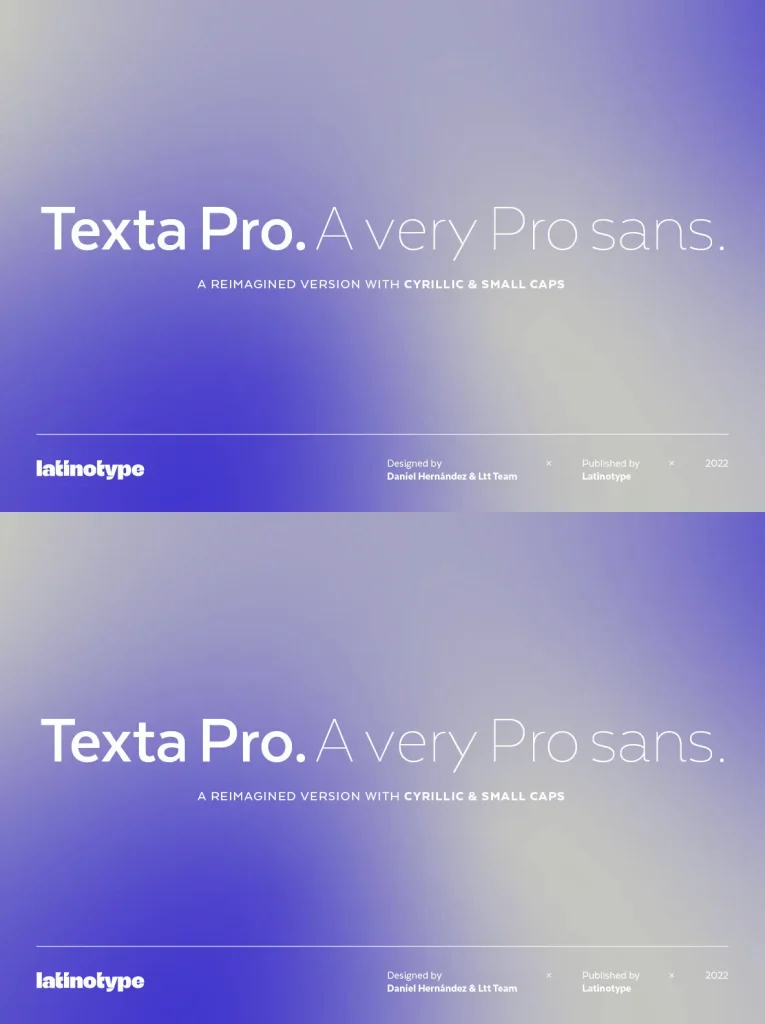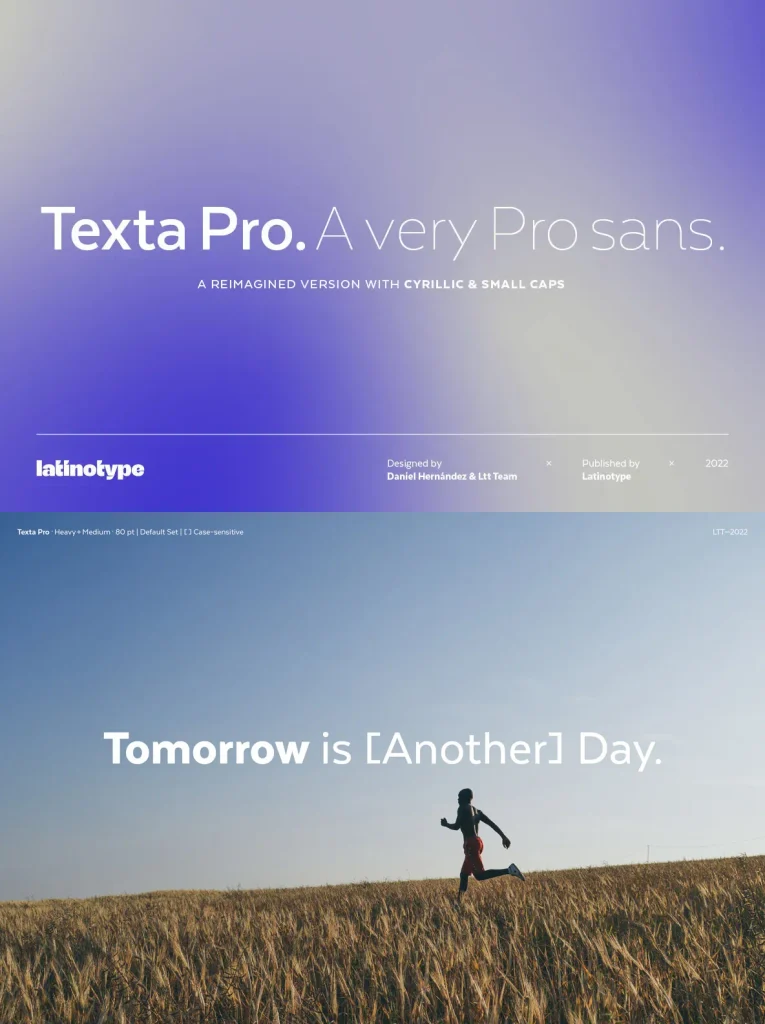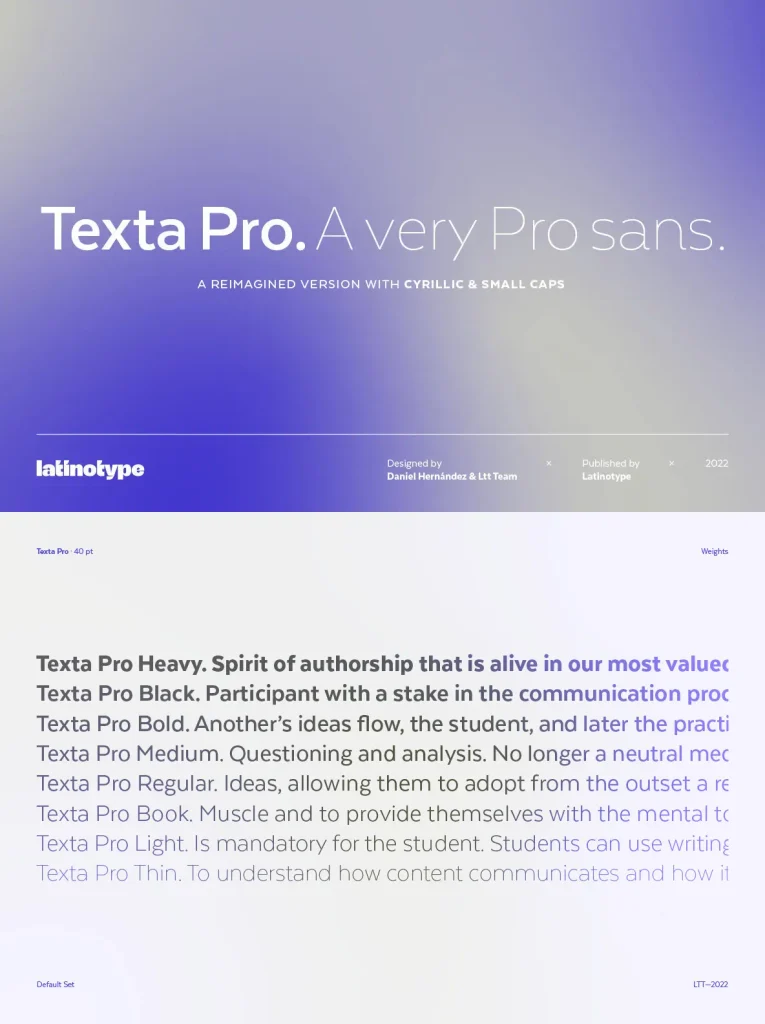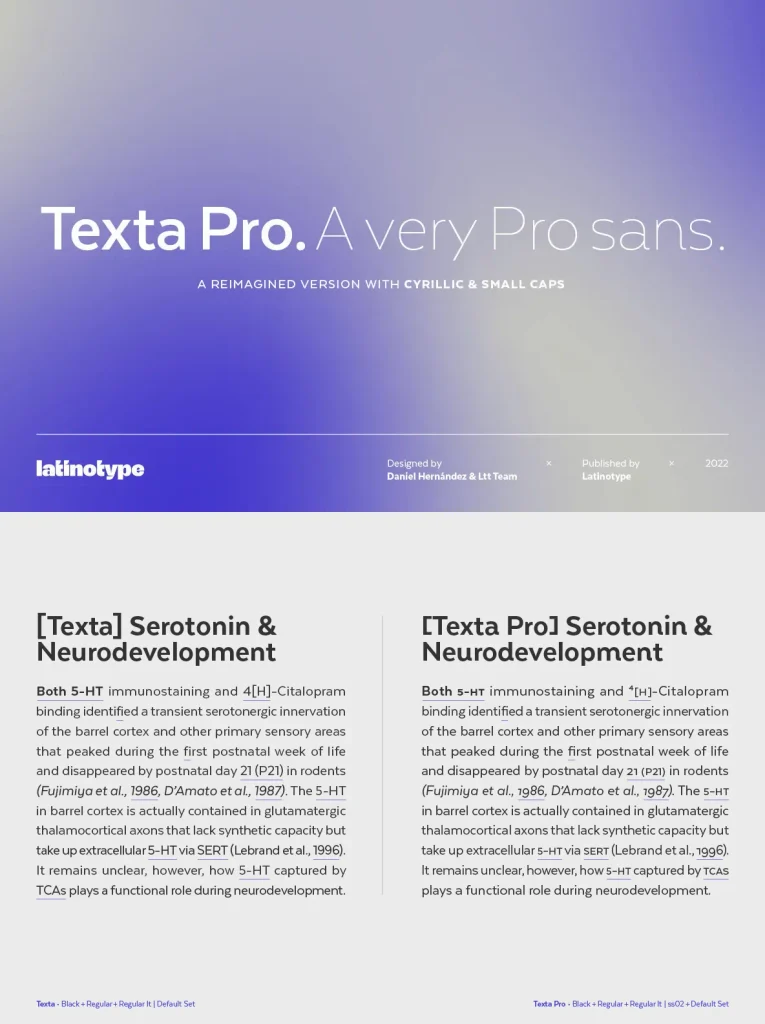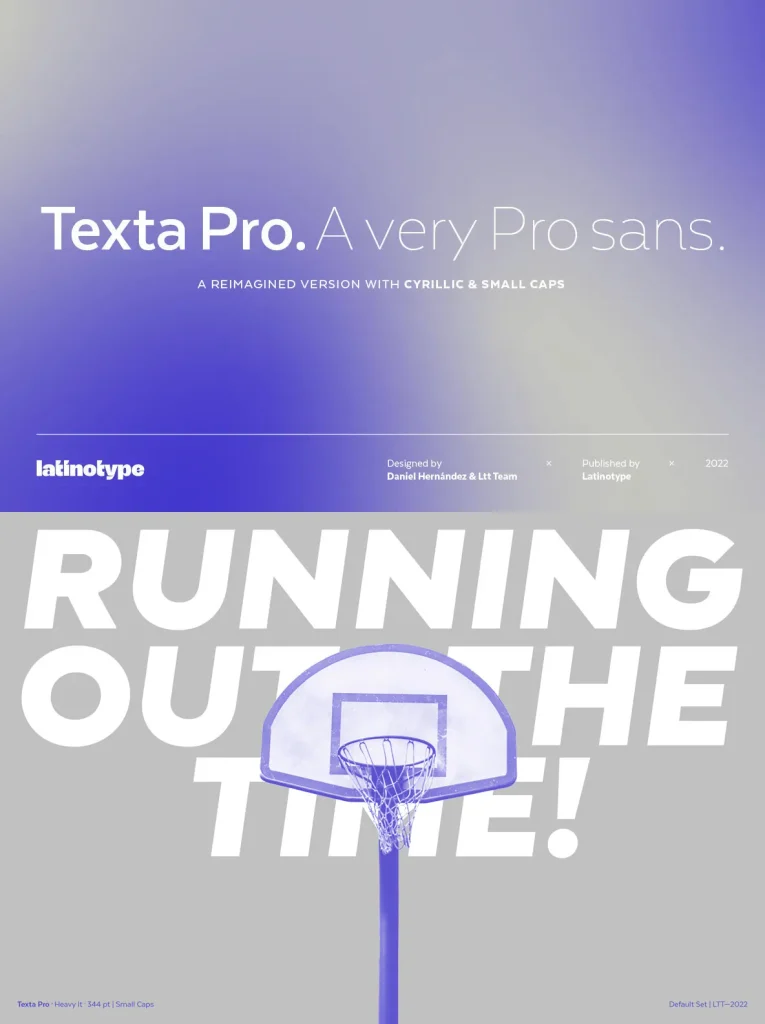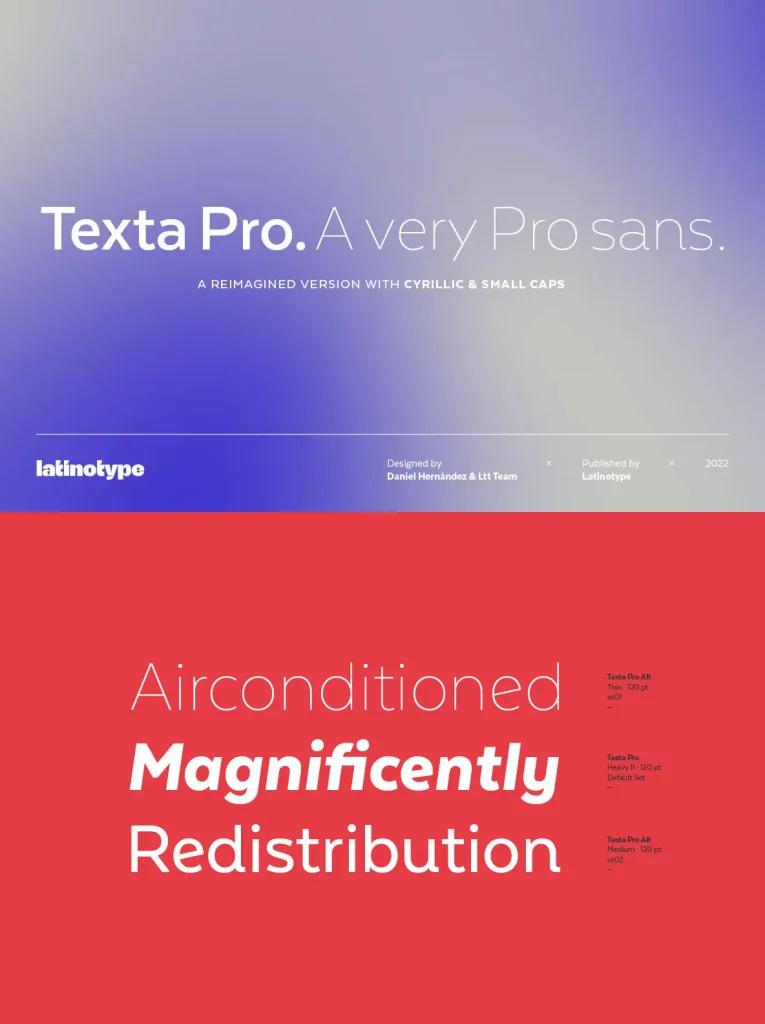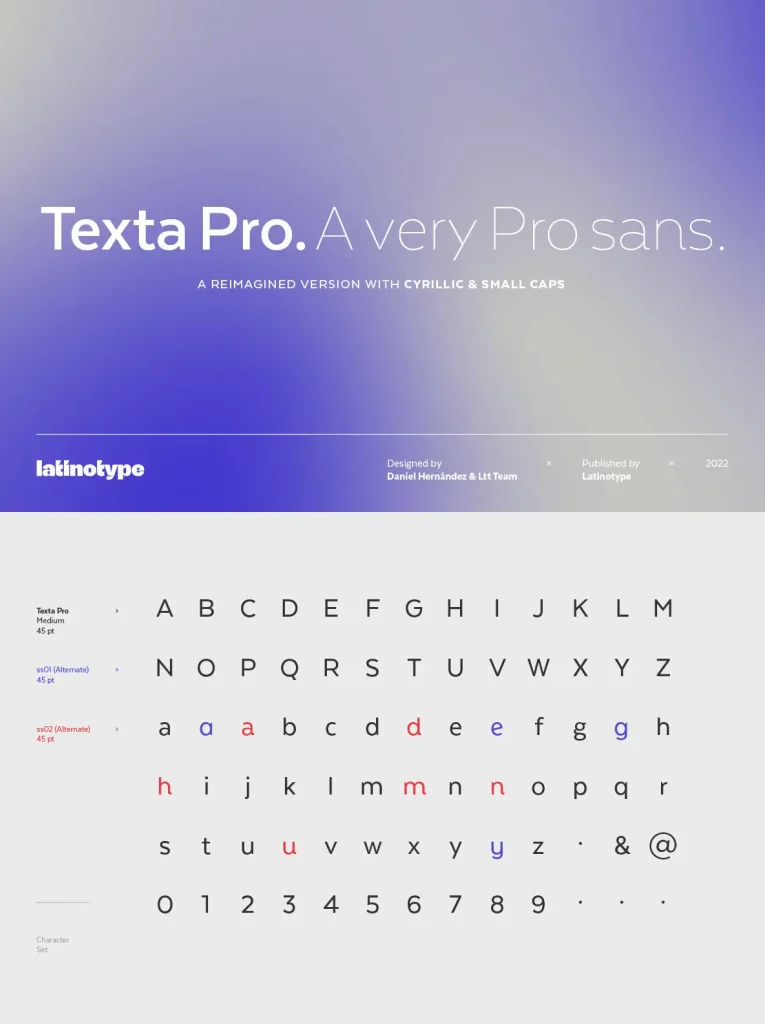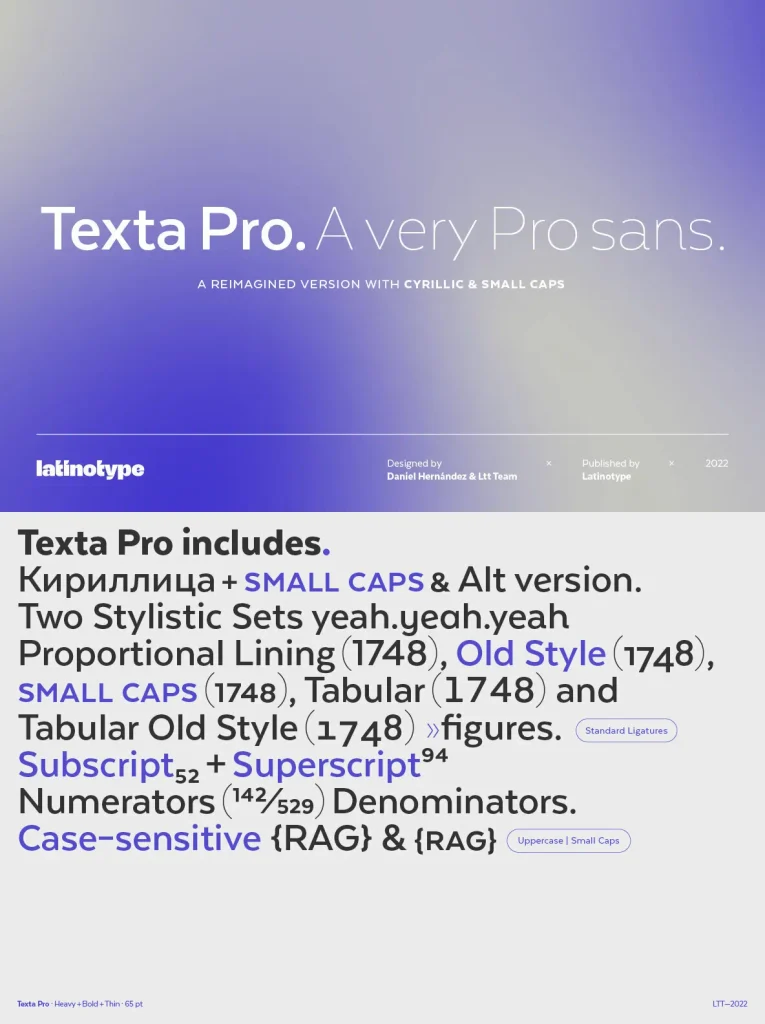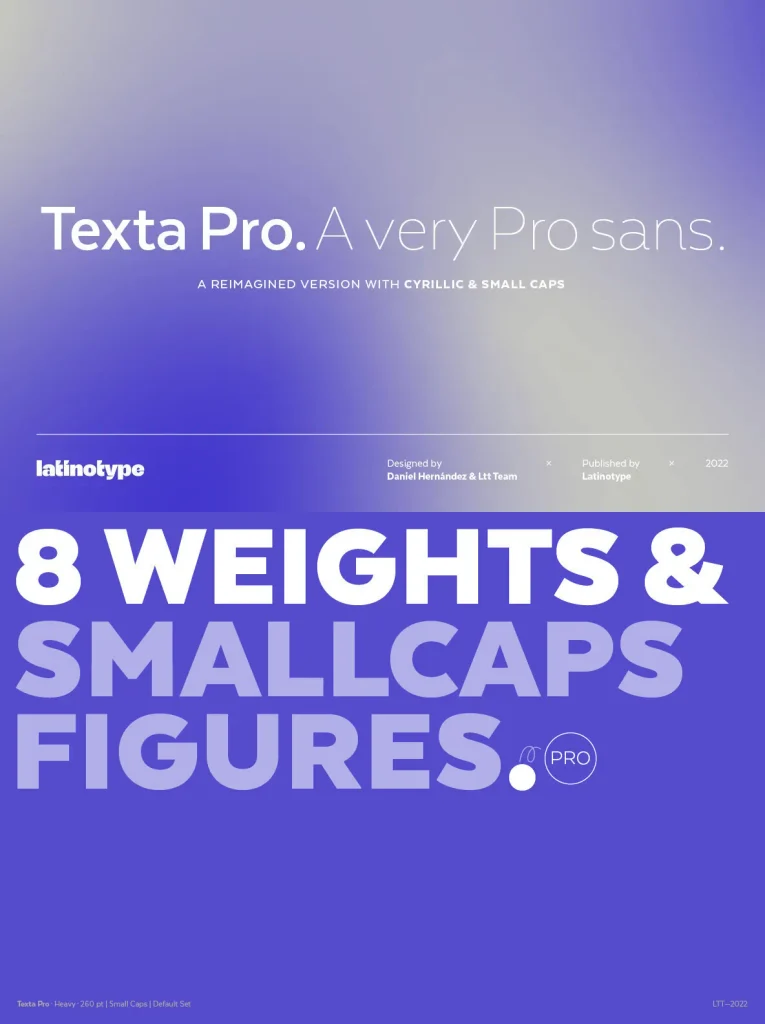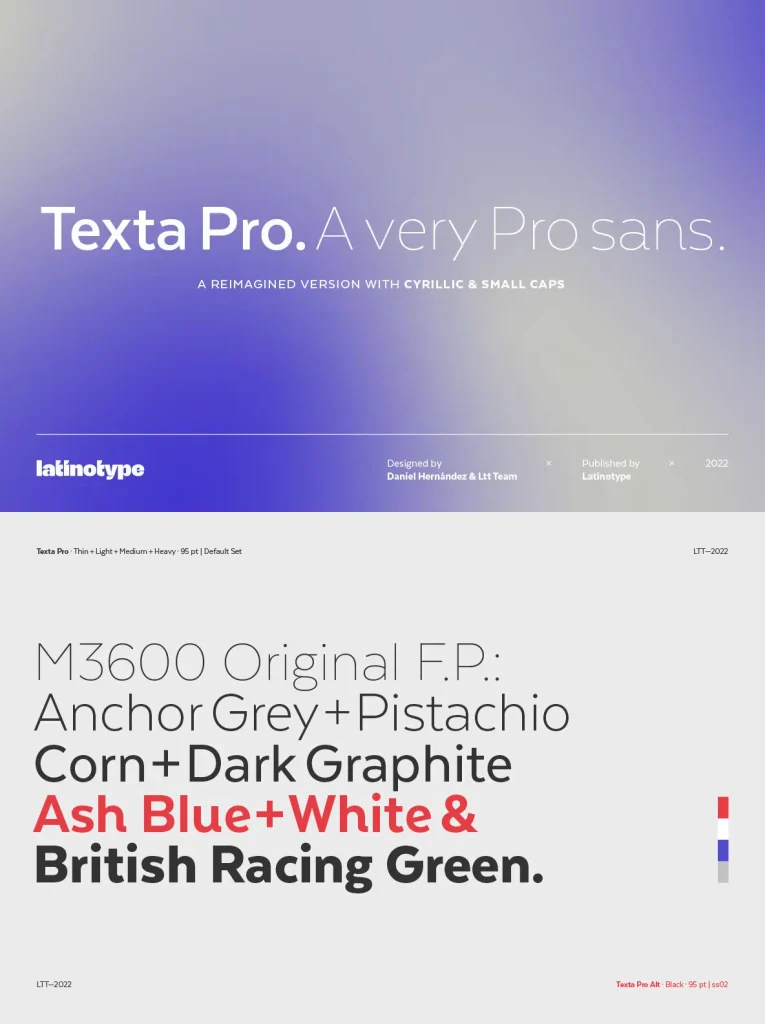
Texta Pro – Humanist Sans Serif Refined
Texta Pro builds on the foundation of classic humanist typefaces, drawing influence from masters like Edward Johnston and Adrian Frutiger. Designed in 2014, it offers a modern take on tradition by merging subtle elegance with practicality.
This sans serif is clean and rational, designed to work seamlessly across digital and print platforms. Its near-invisible geometry allows your content to take center stage while maintaining a unique character. The balanced proportions ensure smooth readability at any size, making it ideal for branding, editorial layouts, and user interfaces.
Contemporary humanist design rooted in typographic history
Effortlessly readable with subtle personality
Suitable for digital and print use
Versatile for branding, editorial, and interfaces